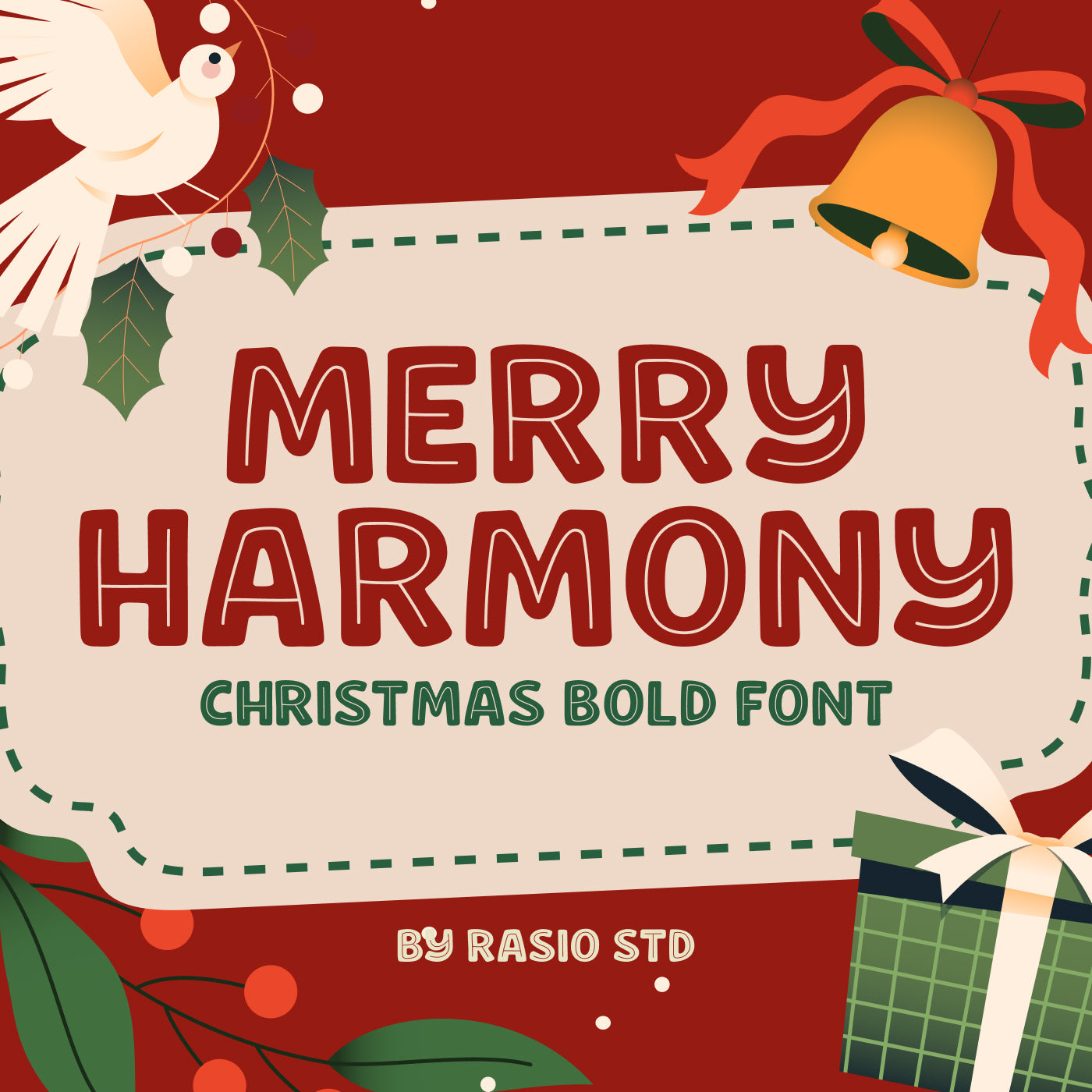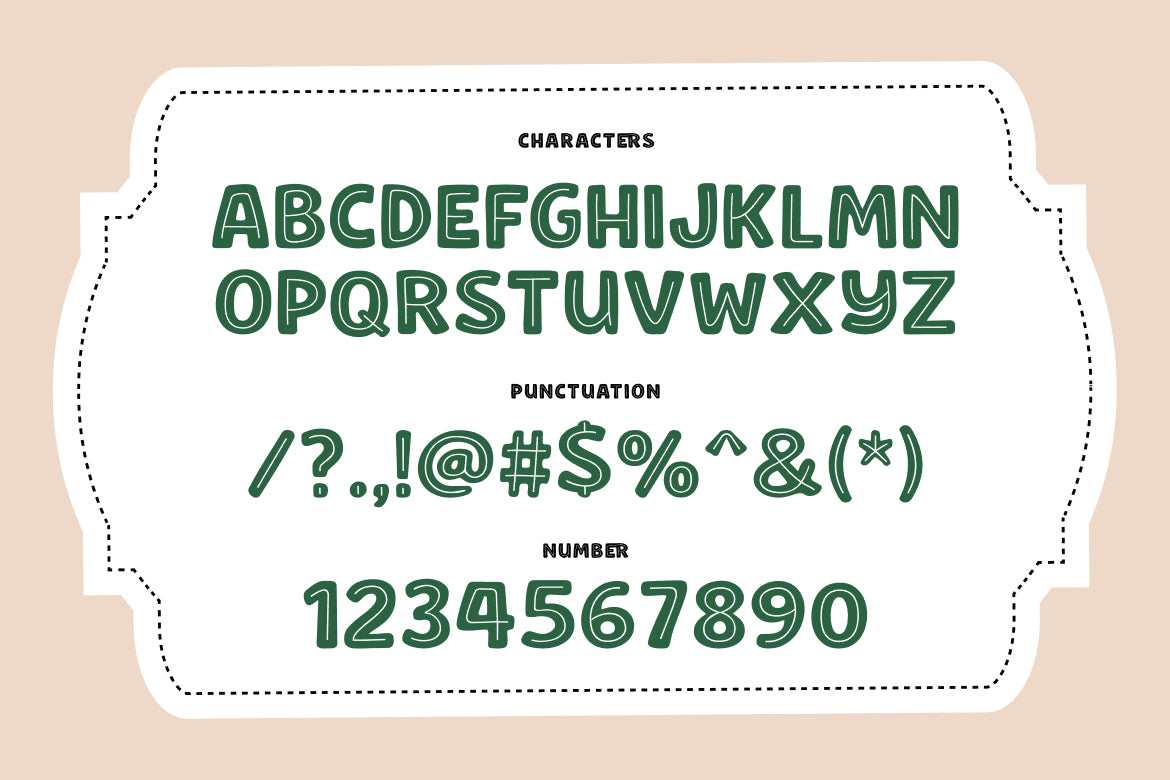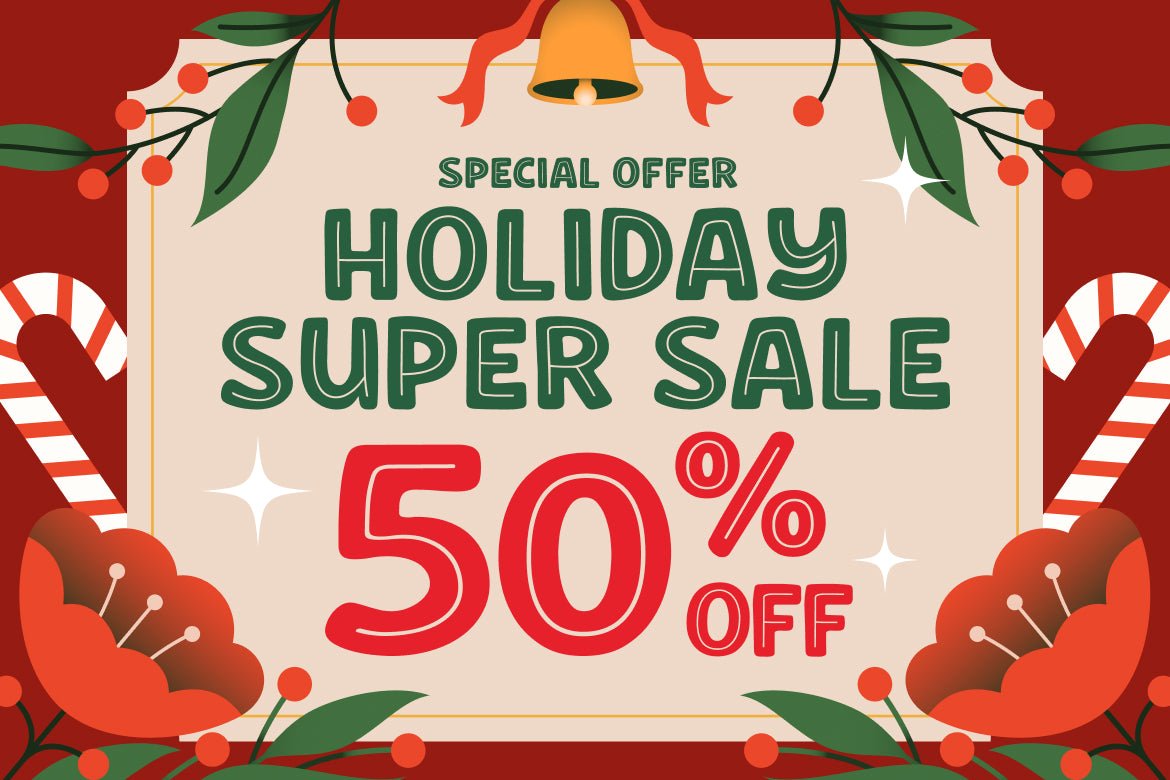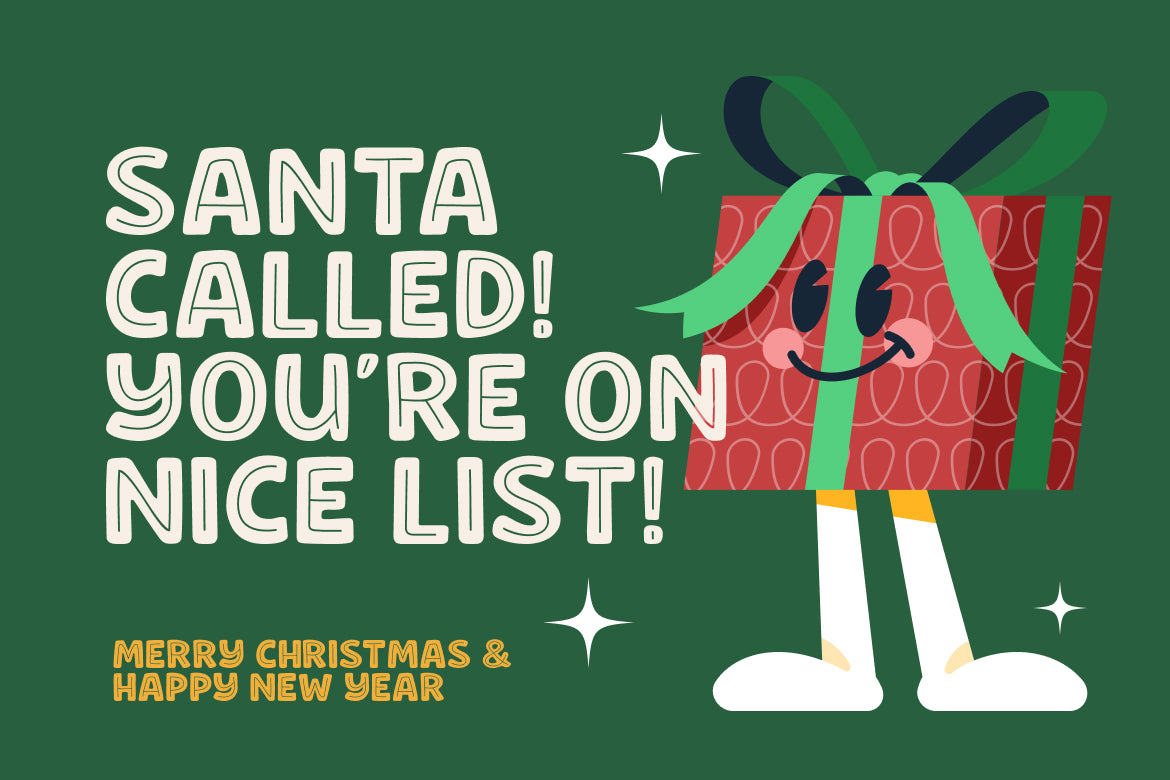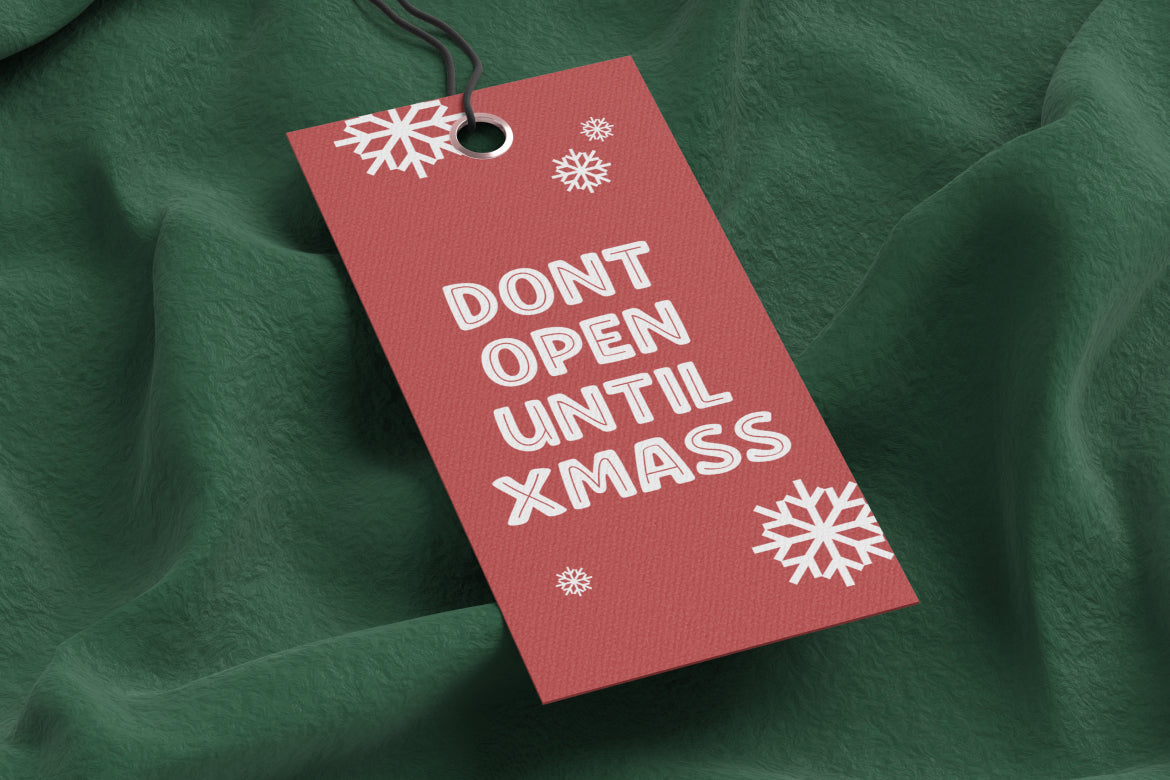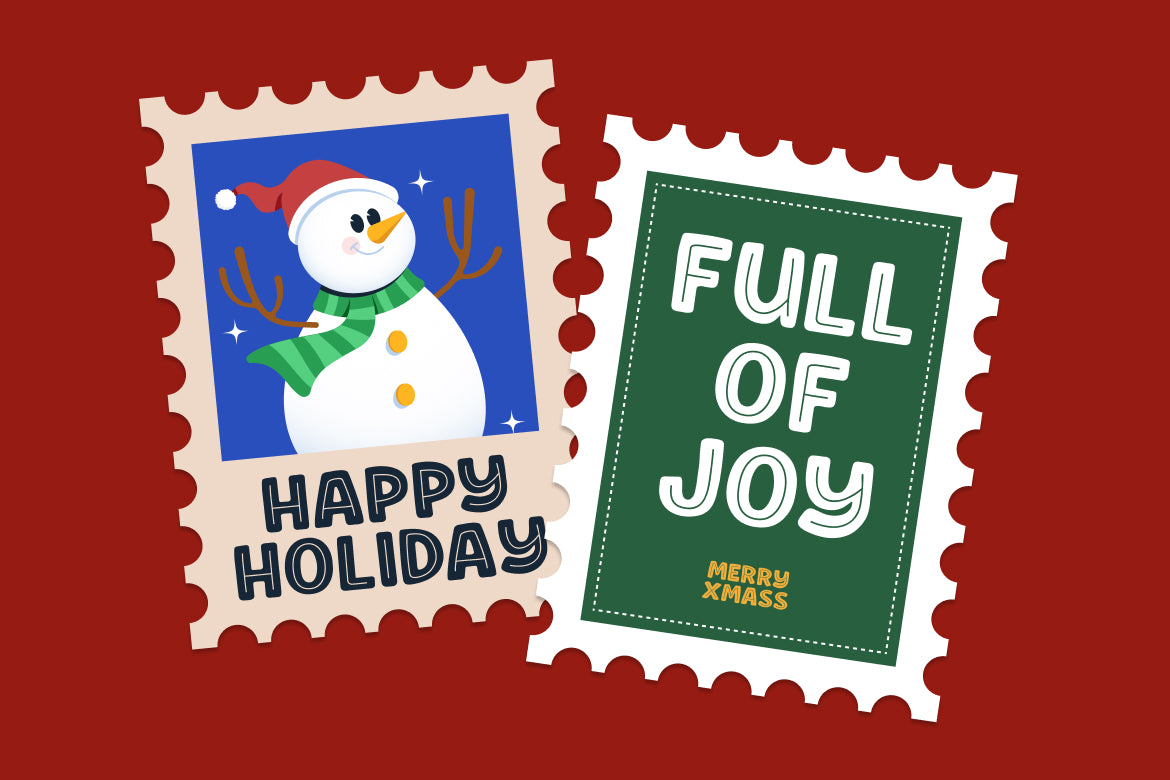
Merry Harmony Christmas Bold Font
Merry Harmony Christmas Bold Font is a cheerful Christmas display font featuring bold rounded letterforms that bring warmth, joy, and festive charm to every design. Its playful proportions and friendly appearance make it perfect for holiday-themed typography, seasonal branding, greeting cards, gift packaging, product labels, social media graphics, and promotional materials. The font includes uppercase and lowercase characters, numbers, punctuation, and multilingual support for broader language compatibility. Designed with clean outlines and smooth curves, Merry Harmony delivers excellent readability while maintaining a handcrafted holiday personality. This typeface works beautifully in both print and digital projects but is intended primarily for headlines, titles, logos, and large display text rather than long paragraphs.
Relevance and Use Case is perfect for holiday-themed creative projects that need a fun, warm, and inviting visual style. It works especially well for Christmas branding, greeting cards, product packaging, seasonal advertising, event invitations, social media campaigns, gift labels, festive merchandise, promotional banners, and printable decorations. Its bold rounded characters ensure headlines remain eye-catching across both digital and printed media.
Merry Harmony Christmas Bold Font is a cheerful display typeface featuring bold rounded letterforms, designed for holiday-themed typography. It includes uppercase and lowercase characters, numbers, punctuation, and multilingual support, available in OTF, TTF, and WOFF formats, ensuring excellent readability for both print and digital projects.